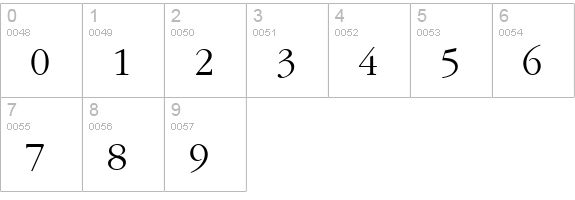
IGaramond Regular Font Details
IGaramond Regular is the standard, neutral variant in the IGaramond typeface family \xE2\x80\x94 well suited to general body text, paragraphs, and standard typographic work.
IGaramond Regular is a timeless and elegant font that exudes sophistication and class. With its delicate serifs and graceful curves, this font is perfect for adding a touch of refinement to any project. Whether you're designing a wedding invitation, creating a logo for a luxury brand, or crafting a beautiful book cover, IGaramond Regular will elevate your design to new heights. What makes IGaramond Regular even more enticing is that it is available for free download at FontsMarket.com. That's right, you can enjoy the beauty and versatility of this stunning font without spending a dime. FontsMarket.com offers a wide range of high-quality fonts, and IGaramond Regular is just one of the many gems you can discover on their website. Whether you're a professional designer, a student working on a project, or someone who simply appreciates the beauty of fonts, IGaramond Regular is a must-have in your collection. Its timeless appeal and versatility make it suitable for a variety of design projects, from print materials to digital creations. So why wait? Visit FontsMarket.com today and grab your free download of IGaramond Regular. Elevate your designs with this exquisite font and let its beauty captivate your audience.